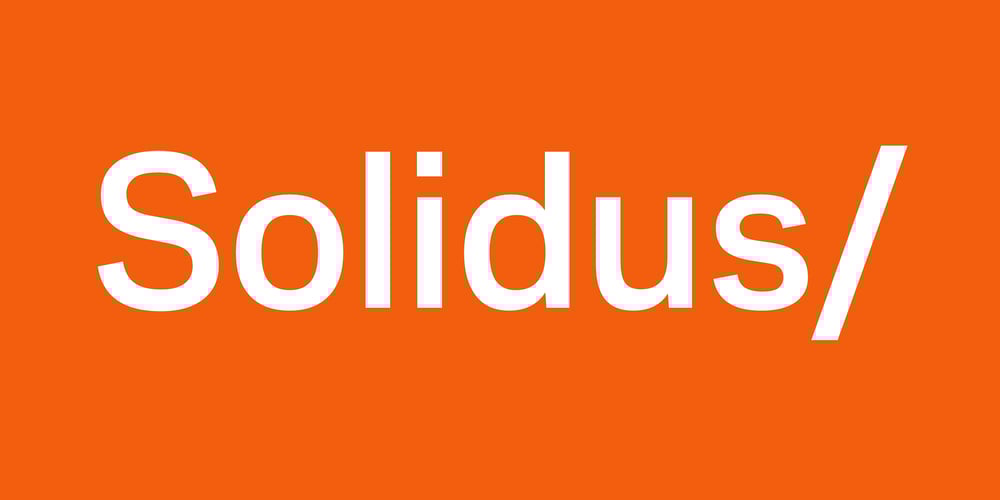
Solidus Open
Solidus Open font
Solidus Open Font Family was designed by Stuart Brown and published by Brown Type. Solidus Open contains 18 styles and family package options. Intended as a companion family to Solidus, Solidus Open has angled terminals which introduce more vigour to the letterforms and take it closer to a classic Grotesque in appearance. Both Solidus and Solidus Open possess the same horizontal and vertical metrics, so they can be used interchangeably to create tonal variation without impacting text flow. Solidus is available in nine distinctive weights from wafer-thin Hairline to a hefty Black, each with accompanying italics. Typical of the Neo-grotesque style the italics are slanted in construction and have the same advance width as the uprights.